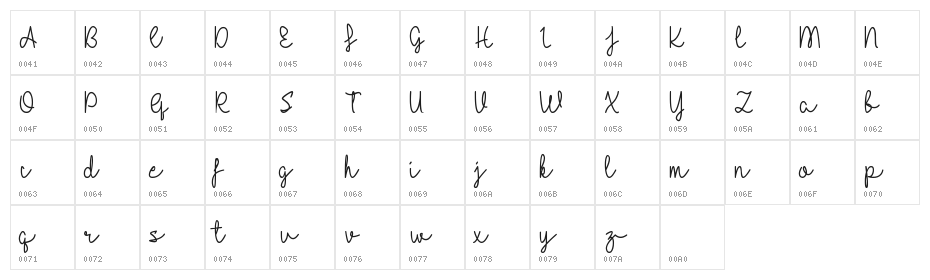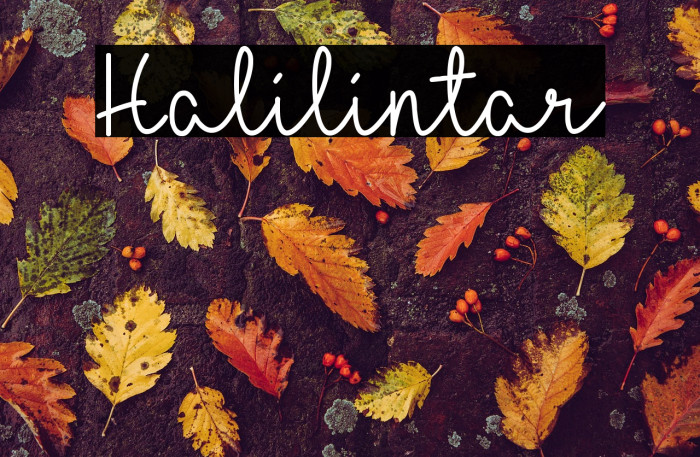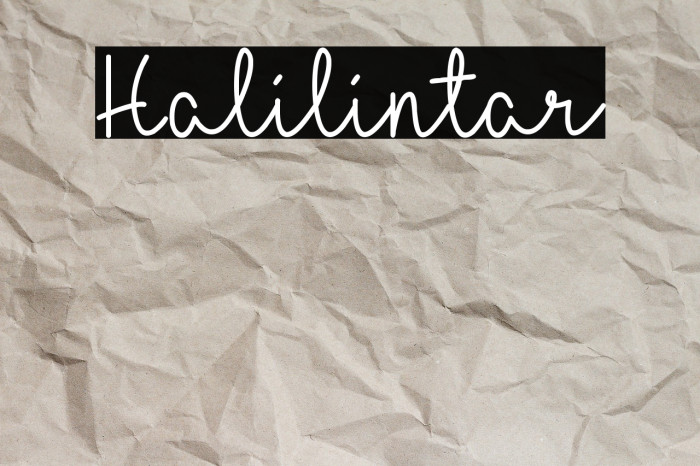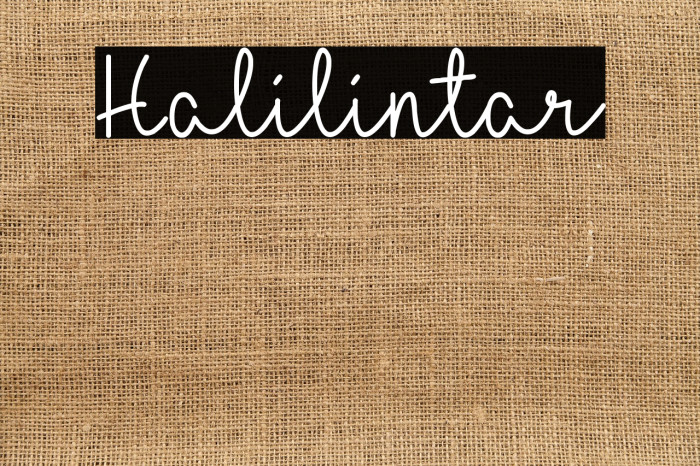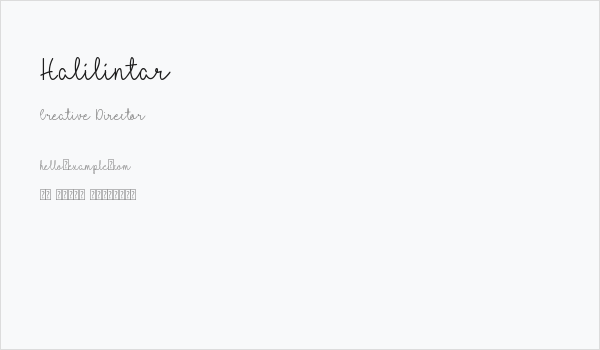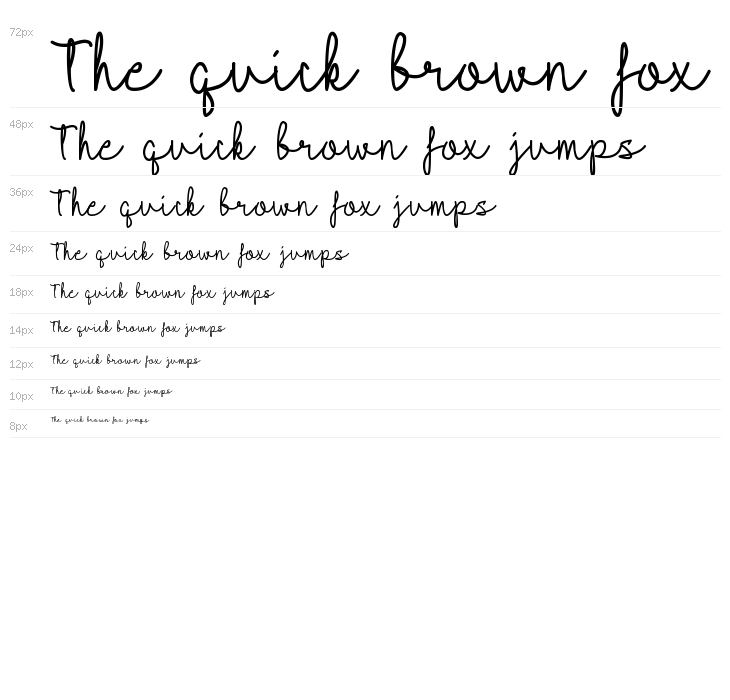
Halilintar Font
Halilintar Description
This font features a playful and casual handwritten style, characterized by its flowing and connected letterforms. The uppercase and lowercase letters maintain a consistent rhythm, with a slight slant that adds to its informal charm. The strokes are smooth and rounded, giving it a friendly and approachable appearance. The font's design is versatile, making it suitable for a variety of creative projects that require a personal touch. Its unique style is perfect for conveying warmth and personality.
| Use Case | Logos, Invitations, Social Media Graphics |
| Proposed Projects | Ideal for greeting cards, invitations, personal branding, and social media graphics. |